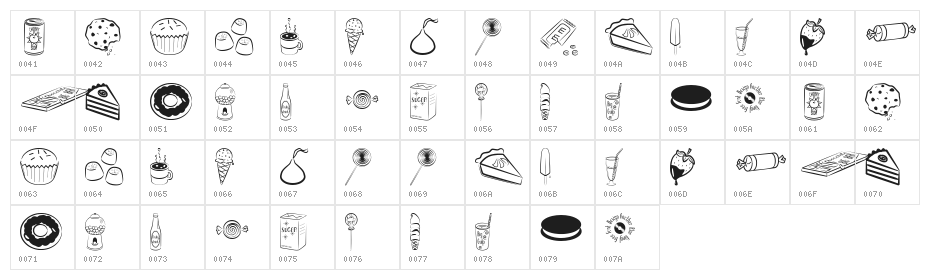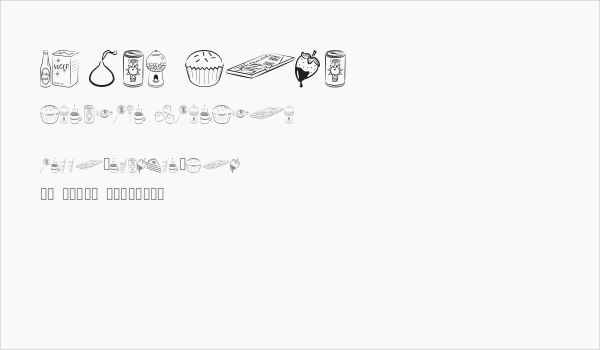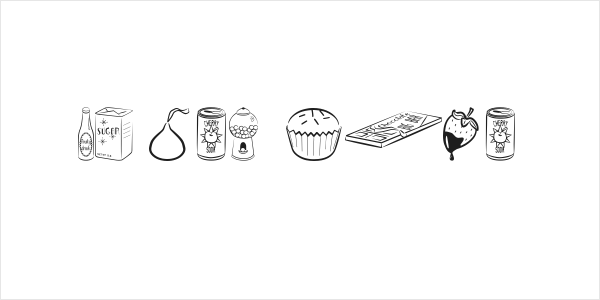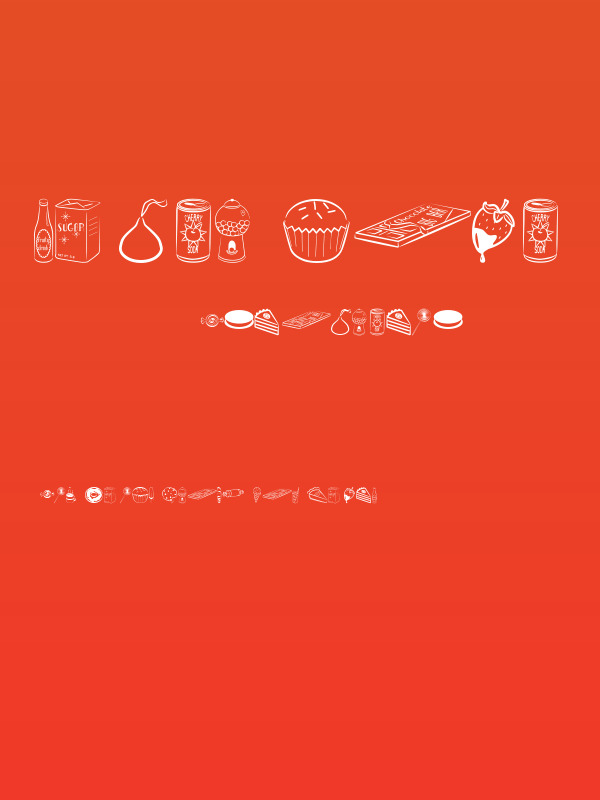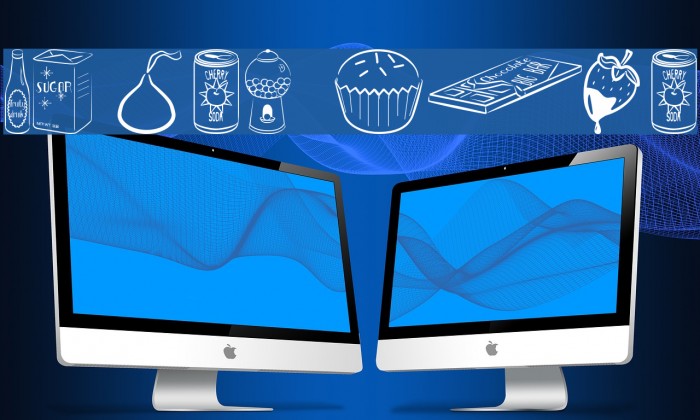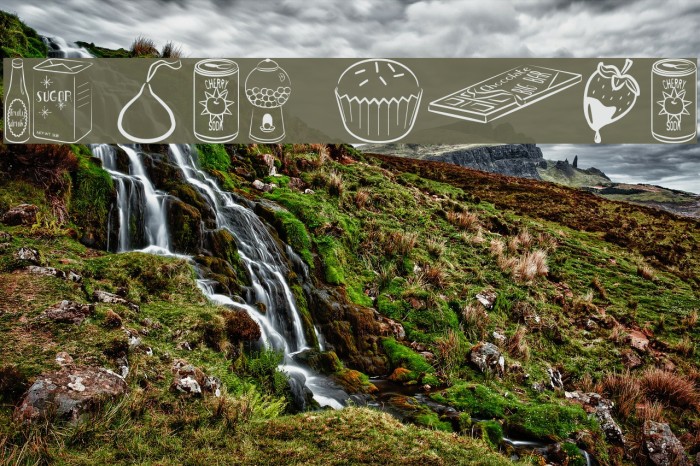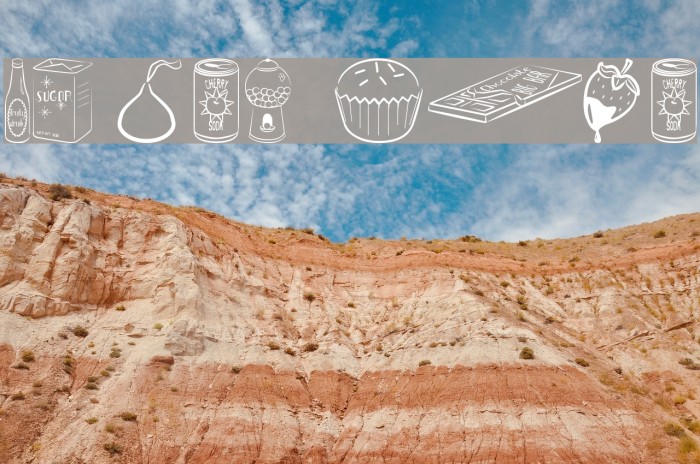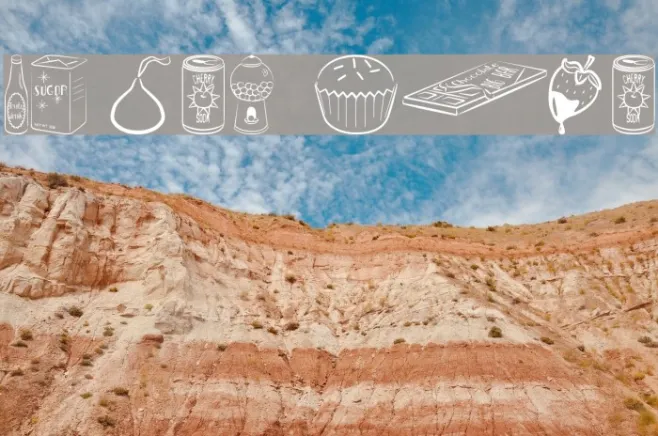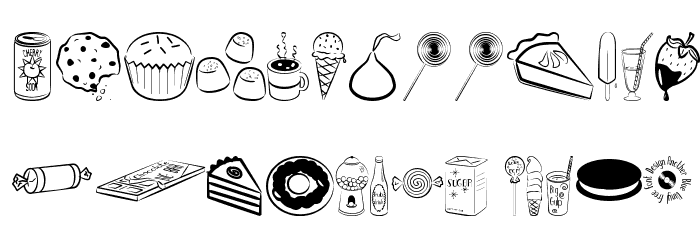
Sugar Coma Font
Sugar Coma Description
This is a playful and whimsical decorative font featuring a variety of sweet treats and desserts as characters. Each letter and symbol is creatively represented by an illustration of candies, cakes, ice creams, and other sugary delights. The design is intricate and detailed, capturing the essence of a fun and lively confectionery theme. The font is not intended for traditional text but rather for decorative purposes where a unique and thematic visual is desired. The characters are bold and eye-catching, making them suitable for projects that require a touch of sweetness and creativity.
| Overall Style | Playful and Whimsical |
| Use Case | Logos, Posters, Invitations |
| Proposed Projects | Ideal for children's party invitations, candy shop branding, playful posters, and themed event decorations. |